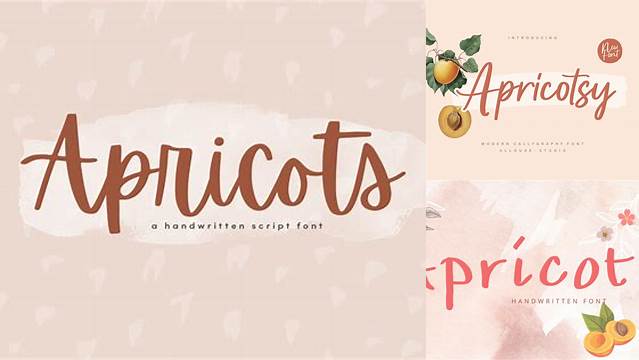
Free Apricot Fonts: Design Delightfully
Hey guys! Let's talk about something super cool today: apricots font free! Yep, we're diving headfirst into the wonderful world of typography and exploring some awesome free fonts that'll make your designs pop. Whether you're a seasoned designer, a newbie, or just someone who loves playing around with fonts, this is for you. I'm going to break down everything you need to know about these apricot-themed fonts, from where to find them to how to use them effectively. So, buckle up, and let's get started!
What Makes Apricots Font Free So Special?
Alright, so you're probably wondering, "What's so special about an apricot font?" Well, it's all about the vibe, my friends. Think about it: apricots are all about warmth, summer, and a touch of sweetness, right? These fonts often capture that essence, bringing a sense of joy and freshness to your projects. The beauty of these fonts often lies in their versatility. You can find apricot-inspired fonts that range from elegant and classic to playful and modern. This variety means you can find the perfect font to match your project's mood and style. Whether you're working on a logo, a website, or even a social media post, an apricot font can add that extra touch of personality that makes your work stand out. You might find fonts with a slightly rounded shape, like the soft curve of a ripe apricot, or those that incorporate elements of the fruit itself, such as delicate leaf-like serifs. The best part? They're often free! Yes, you heard that right. You can access a wide variety of beautiful apricot-inspired fonts without spending a dime. This makes them an excellent choice for anyone who's budget-conscious but still wants to create stunning visuals. These fonts also give you the chance to support independent designers who are offering their creations to the public. It's a win-win situation: you get access to unique and creative fonts, and you help support the creative community. It’s also a good way to add a unique touch to your project, especially when you want to evoke a sense of organic and natural design. The associations with the fruit can make your audience perceive your designs as friendly, approachable, and visually appealing. The use of apricot-inspired fonts can make your designs feel more inviting and connect with your audience on a deeper level. So, whether it's for a website, branding, or other design needs, using apricot-themed fonts can be a great move.
As you explore the realm of apricot fonts free, consider the emotional impact you want to create. Do you wish to express elegance or a more casual vibe? Do you prefer a font that is clean and modern, or one with a touch of vintage charm? Keep in mind that choosing the right font is a crucial part of design. The right font can make or break the overall aesthetic appeal of your project. Think about the context of your project and how the font will appear. For example, a more playful apricot-themed font is great for a children’s brand, and a more sophisticated one could be used in a high-end food product. Don’t be afraid to experiment! Download several fonts and test them out on your project. Try different font sizes and weights. See how they look in headlines, body text, and other text elements. Try creating mockups to see how your chosen font will look in your design. It’s all about finding the font that resonates with your design and the message you want to deliver.
Where to Find the Best Free Apricots Fonts
Okay, so you're sold on the awesomeness of apricots font free. Now, where do you actually find these gems? Don't worry, it's easier than you think! There are tons of fantastic resources out there, and I'm going to share some of the best ones with you.
When searching for free apricots font resources, always remember to be mindful of licensing. Most free fonts come with specific usage terms. Some are free for personal use only, while others allow commercial use. Before you download and use a font, carefully read the license to make sure you comply with the terms. This is very important to avoid any legal issues. Also, when downloading, be sure the website is reputable and safe. Check for security certificates (like HTTPS) and look for reviews or testimonials from other users. By following these guidelines, you can safely explore and enjoy the wonderful world of apricot fonts!
How to Effectively Use Apricots Fonts in Your Designs
Alright, you've found some amazing apricots font free options, and now you want to know how to actually use them like a pro. Let's dive into some tips and tricks to help you create stunning designs.
Choose the right font for the job. As we've mentioned before, there's a huge variety of fonts available. Make sure the font you choose matches the overall tone and style of your project. A delicate, script-style font might be perfect for a wedding invitation, while a bolder, sans-serif font might be better suited for a website header. Consider the purpose of the font. Will it be used for headings, body text, or both? Headings are great for showier fonts that capture attention, while body text should be easy to read and more subdued. Make sure to pick a font that's legible at all sizes, especially for body text.
Pair fonts wisely. Don't just use one font in your design. Mixing and matching fonts can add visual interest and depth. However, it's important to pair fonts that complement each other. Consider the contrast between the fonts you select. A good pairing is to blend a serif font (with small lines at the end of strokes) with a sans-serif font (without these lines). Try to pick a font that has similar style but has different weights. You should avoid mixing fonts that are too similar to avoid confusion. You can also mix different font styles, such as bold and italic, to add additional emphasis and visual interest. Experiment and test out different combinations to see what works best for your project.
Conclusion: Embrace the Beauty of Apricots Fonts!